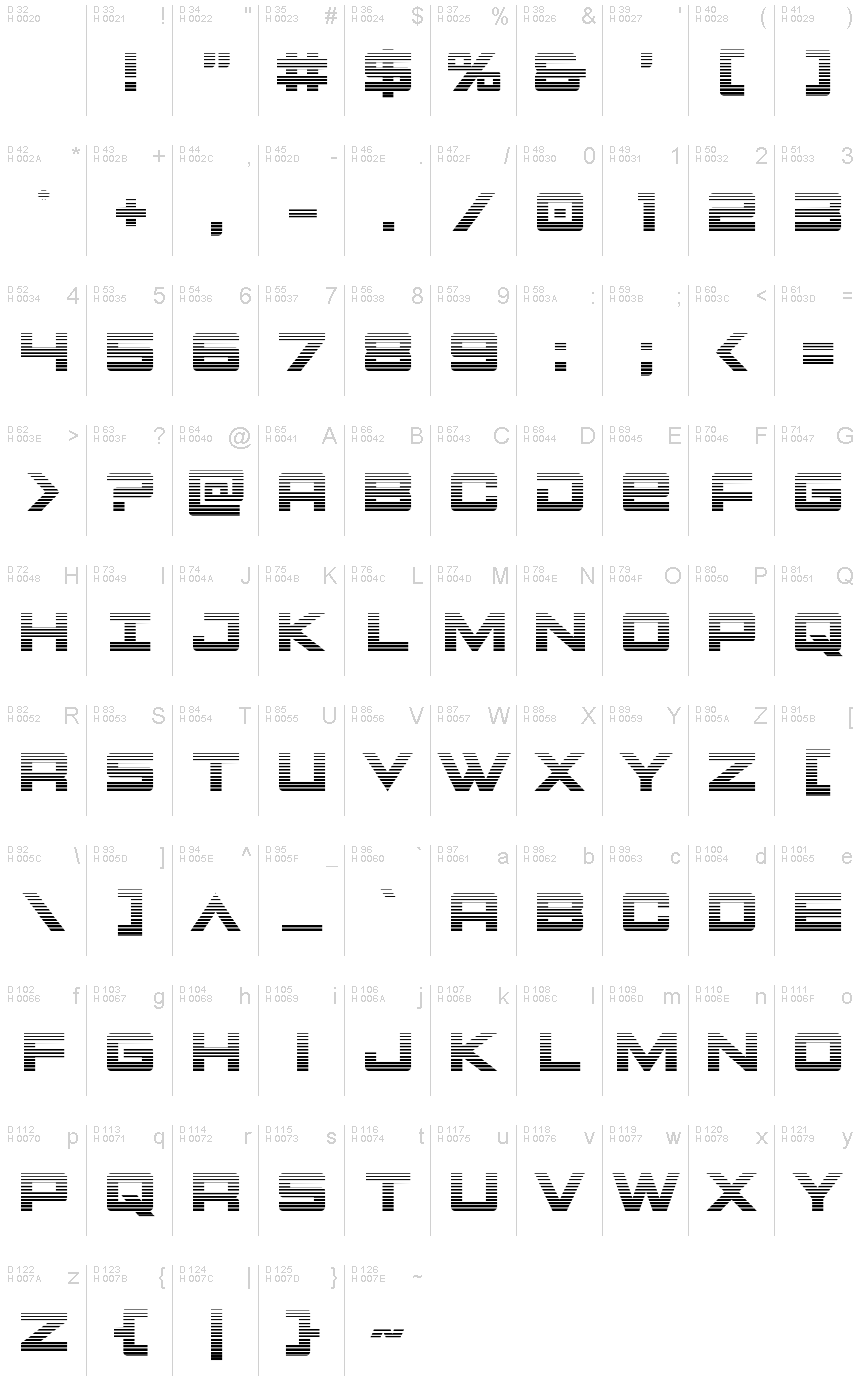
Montroc Gradient is a bold, futuristic display font that radiates an undeniable sense of dynamism and modernity.
The sharp, angular letterforms and expanded width create a striking visual impact, lending themselves well to eye-catching headlines, impactful branding, and cutting-edge design projects. The gradient effect adds depth and dimension, elevating the font's aesthetic appeal and lending it a distinctive, high-tech flair.
Montroc's unique characteristics make it a versatile choice for a variety of design applications, from digital media and advertising to packaging and editorial layouts.
Its bold presence commands attention, making it an excellent option for designers seeking to create a bold, futuristic statement.